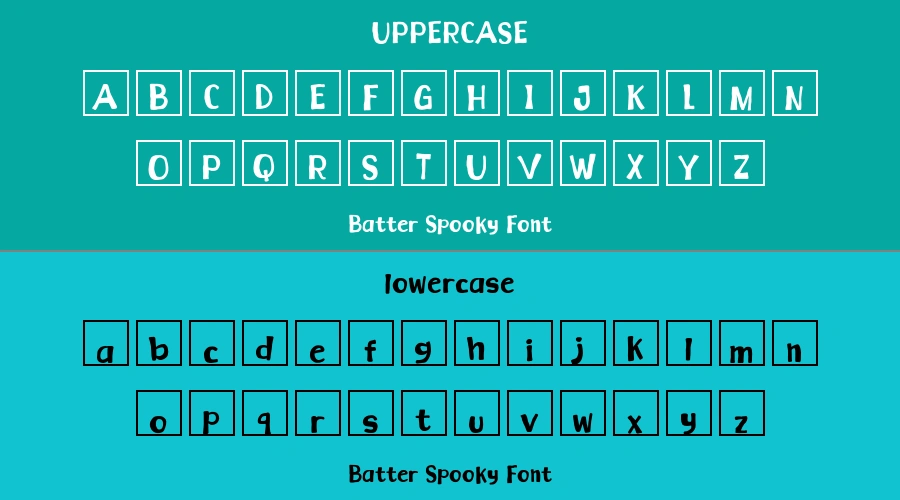
About Batter Spooky Font
Designed with precision, Batter Spooky Font merges assertive angles with consistency in every character. This versatility makes it particularly effective for magazine layout, where memorability and craft excellence directly impact communication quality. Each letterform demonstrates meticulous craftsmanship.
Technical excellence shines through elements like brush influence and subscript/superscript, enhancing typographic versatility. In digital banners settings, Batter Spooky Font proves its worth through superior microfilm readability. The thoughtful execution of loop structure and artistic merit ensures professional results.